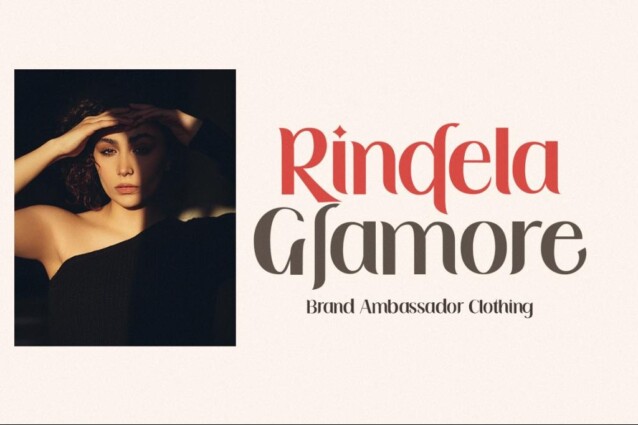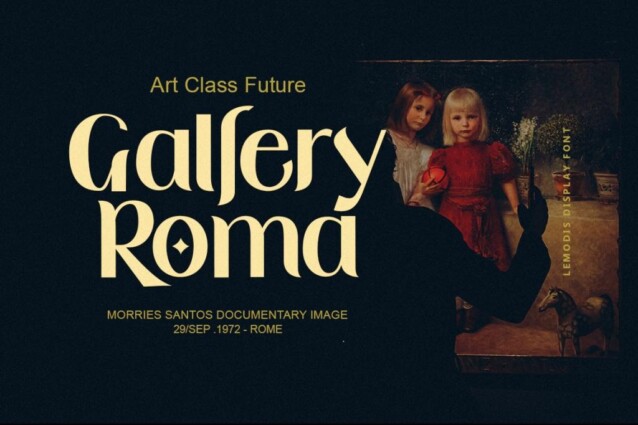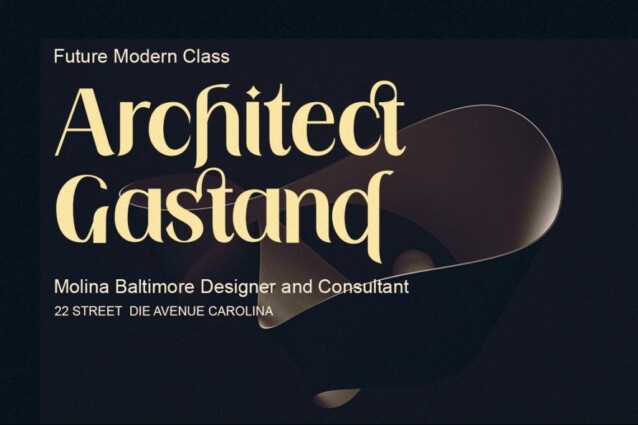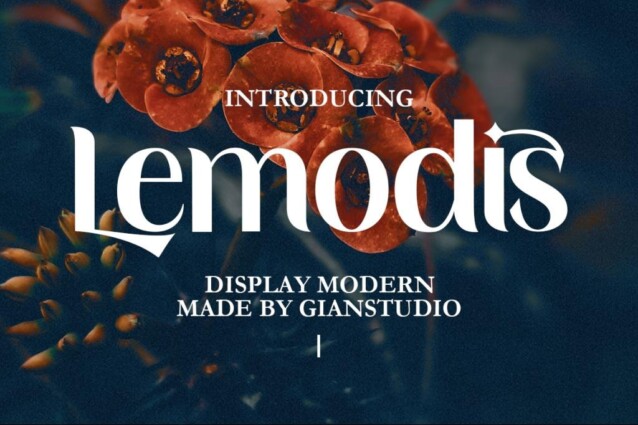
Lemodis Font
Lemodis Font is a high contrast font inspired by old style and contemporary fonts. His ideas stem from the social media era, exploring several other art eras and incorporating them into a strong Lemodist signature. The final font looks Subtle yet Modern, just like we did in the preview above, how a font can “stand” in your design.